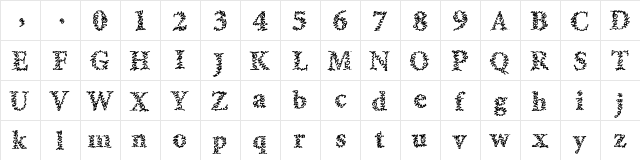
a Morris line Regular
| Foundry | J O E B O B graphics |
| Designer | J O E B O B graphics |
Design Context for a Morris line Typeface
a Morris line is a composed and adaptable typeface that performs quietly and consistently across a wide range of design contexts.